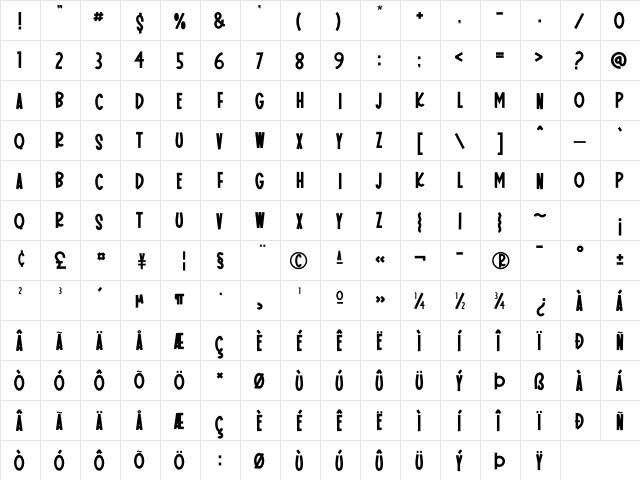
Homemade Donuts Regular
Design Context for Homemade Donuts Typeface
Homemade Donuts is a composed and adaptable typeface that performs quietly and consistently across a wide range of design contexts.